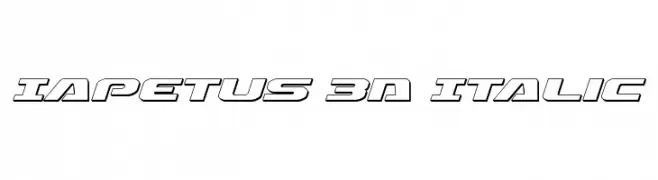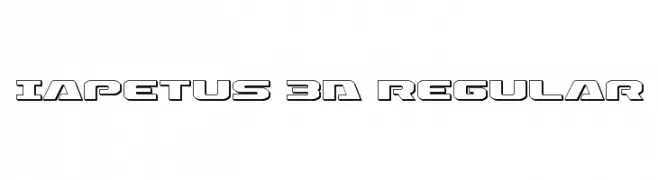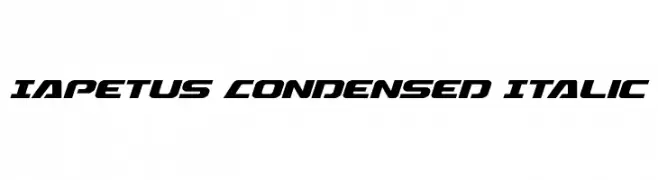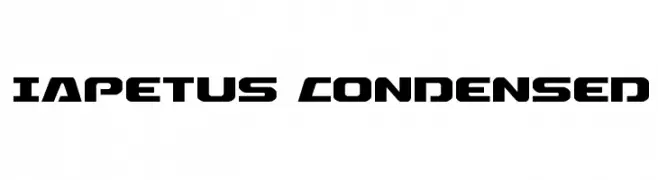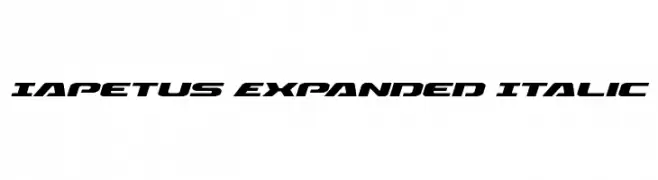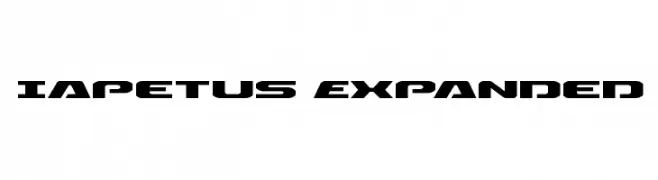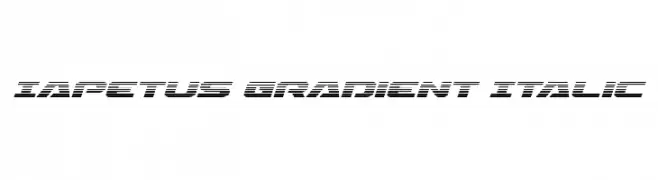
A bold, futuristic font with a 3D effect and sharp, clean lines.
A bold, 3D geometric font with a futuristic and tech-inspired design.
A bold, italicized font with a futuristic, chrome-like design.
A futuristic, geometric font with a three-dimensional effect.
A bold, futuristic, and geometric font with a condensed style.
A bold, condensed italic font with a futuristic and geometric design.
A bold, futuristic font with wide, angular characters and high contrast.
A bold, expanded, and italicized font with a modern, dynamic style.
A futuristic, italic font with a gradient line effect, conveying motion and speed.